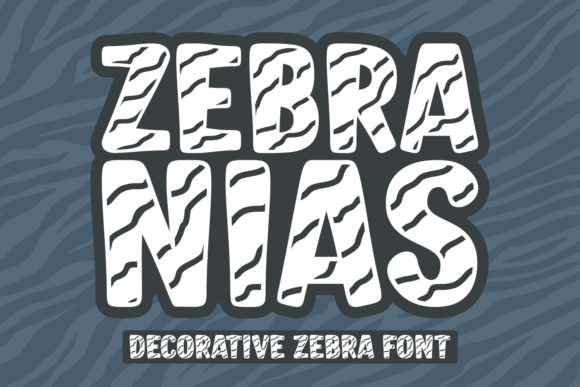
Dive into the realm of whimsy and charm with Zebra Nias Font, the ultimate decorative font that will ignite your imagination and bring your designs to life. This enchanting font, meticulously crafted by the talented Wankriss, is a symphony of playful zebra stripes and captivating shapes, designed to evoke a sense of wonder and joy. Unleash the wild spirit within your designs and embark on a creative adventure with Zebra Nias.
Perfect for conjuring kid-friendly designs, Zebra Nias is a font that speaks to the heart of the young and the young at heart. Its playful, lighthearted nature is sure to capture the attention of children and adultos alike, adding a touch of magic to any project. Let your imagination run wild as you create posters, invitations, greeting cards, and more, all infused with the unique charm of Zebra Nias.
Whether you're a seasoned designer or just starting out, Zebra Nias is the perfect font to add a touch of whimsy and delight to your work. Its user-friendly nature makes it accessible to all, while its captivating design is sure to leave a lasting impression. Experience the joy of creating with Zebra Nias and watch as your designs come alive with personality and charm.
Step into the world of Zebra Nias and let your creativity soar. This enchanting font is your passport to a realm of imagination and wonder, where designs come alive with the playful spirit of the zebra. Embrace the beauty of Zebra Nias and unlock the endless possibilities it holds for your creative endeavors.